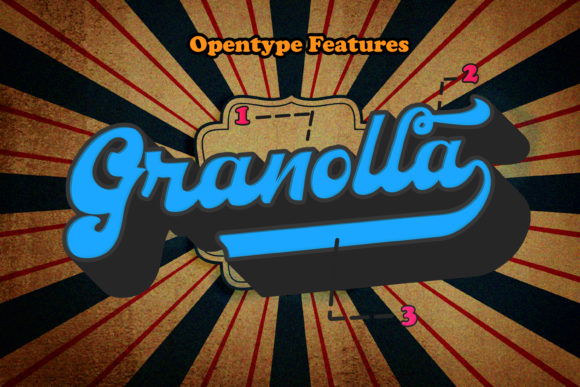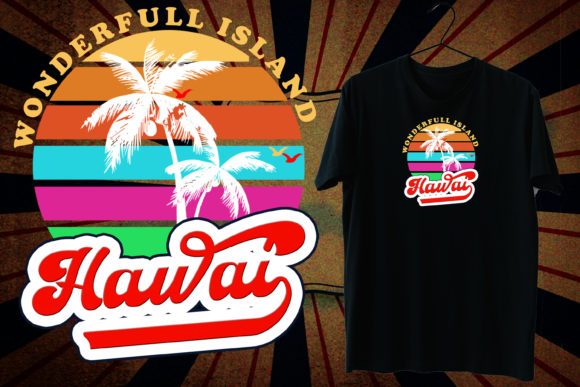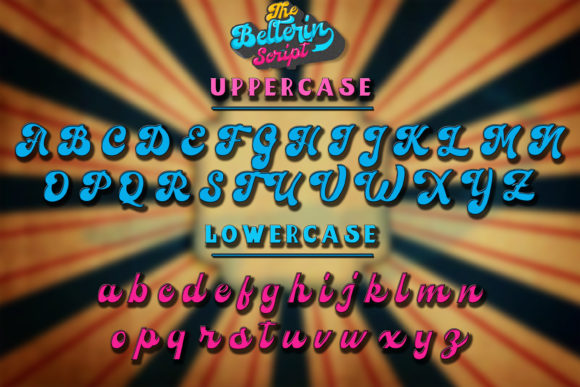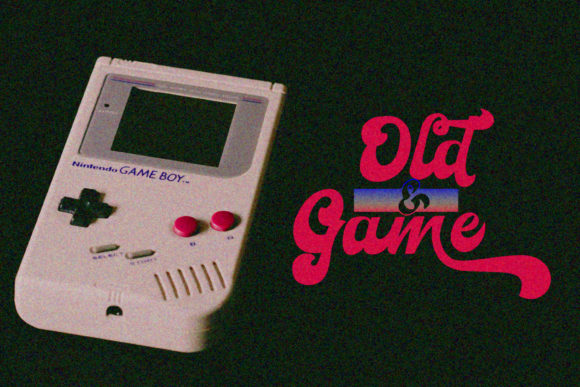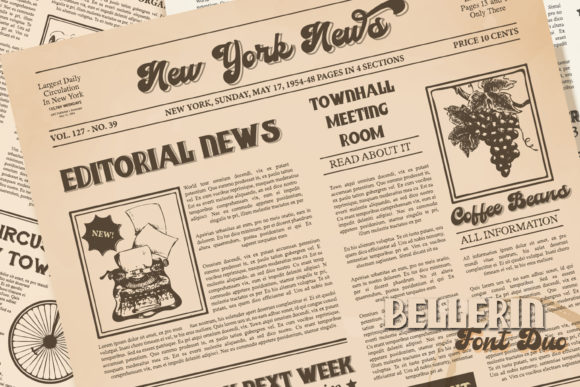
The Groovy World of Bellerin Font
Remember that moment when you stumbled upon the perfect font to match your design idea? The excitement, the thrill, and the ‘aha!’ moment that made everything click into place? For designers, that’s what makes the world of typography so magical.
Meet Bellerin Font, a funky and bold script font that’s straight from the 1970s. This unique font is not just a blast from the past, but a powerful tool to make any design idea stand out. Whether you’re creating a retro-inspired poster, a vintage-style menu, or a bold graphic, Bellerin Font is the perfect companion to bring your vision to life.
For designers, Bellerin Font is a valuable addition to their toolkit. Its bold and playful style makes it an excellent choice for projects that need a bit of personality and flair. So, get ready to groove with Bellerin Font and elevate your designs to the next level!
Bellerin Font Key Features
- Unique Characteristics: Bellerin Font features a unique blend of modern and vintage elements, with intricate details and ornate flourishes that set it apart from other fonts.
Bellerin Font Review
Overall, I’m really enjoying working with the Bellerin Font. Here are some of the things that stand out to me: ✨
- Unique character set: Bellerin has a distinctive character set that immediately caught my eye. The font is a great choice for anyone looking to add some visual interest to their designs.
- High-quality vectors: The font’s vectors are crisp and clear, making it easy to scale up or down without losing any detail.
- Good legibility: Even in smaller font sizes, Bellerin remains easy to read, which is essential for any font.
However, there are a few limitations that I’ve noticed: ⚠️
- Limited language support: Unfortunately, Bellerin doesn’t support many languages beyond English, which may be a problem for designers working on international projects.
- Some characters feel incomplete: While the font’s character set is unique, some of the characters feel like they’re missing a certain je ne sais quoi, which can make them feel incomplete.
Overall, I’d say that Bellerin is a solid choice for designers looking for a distinctive, high-quality font. While it may not be perfect, its unique character set and good legibility make it a great addition to any design toolkit.
Tips for Getting the Most Out of Bellerin Font
Here are some tips to help you get the most out of the Bellerin font:
- Use Bellerin font for titles, headings, and quotes to add a touch of elegance.
- Pair Bellerin font with other fonts to create a unique and harmonious typography.
The Bellerin font is perfect for: